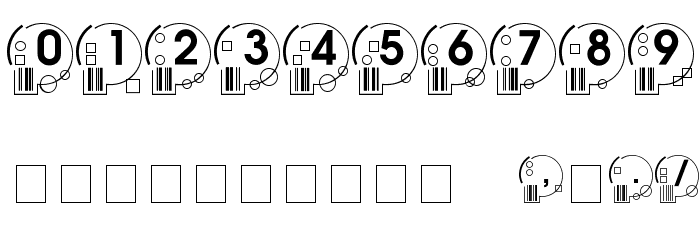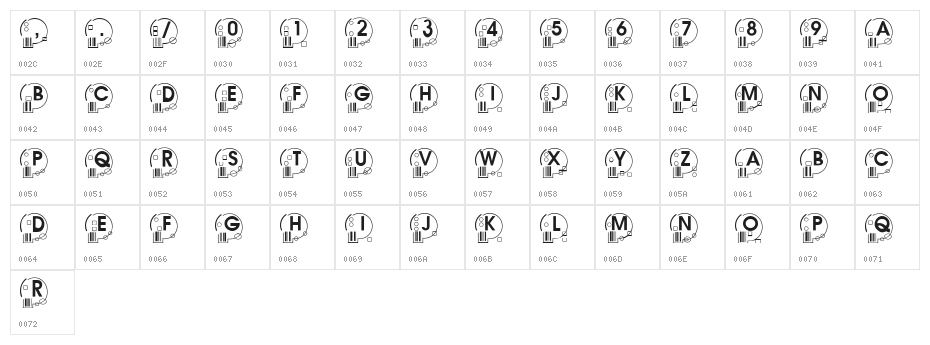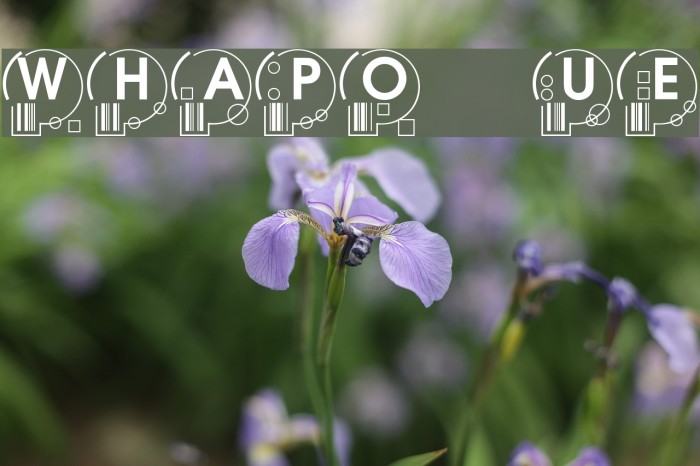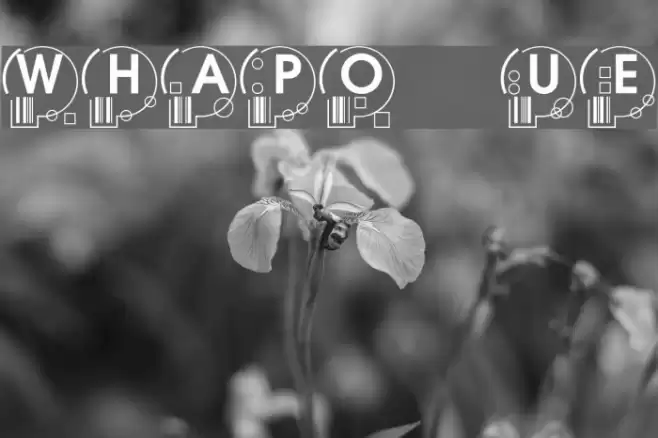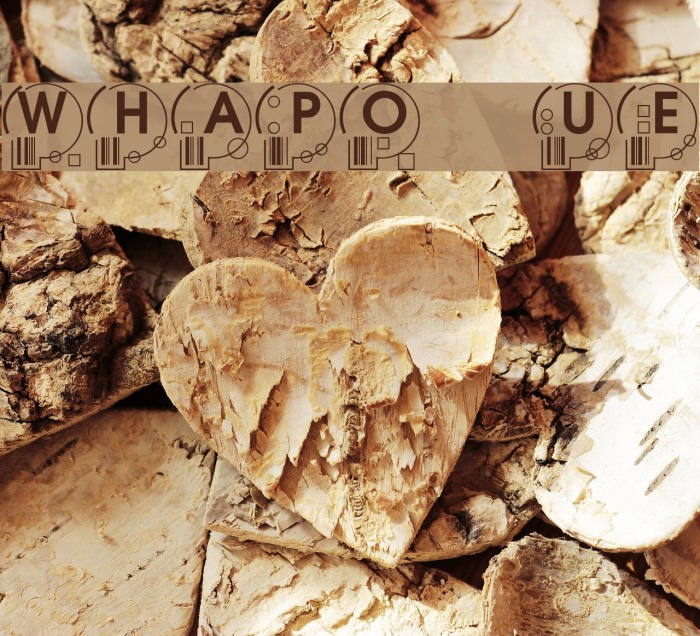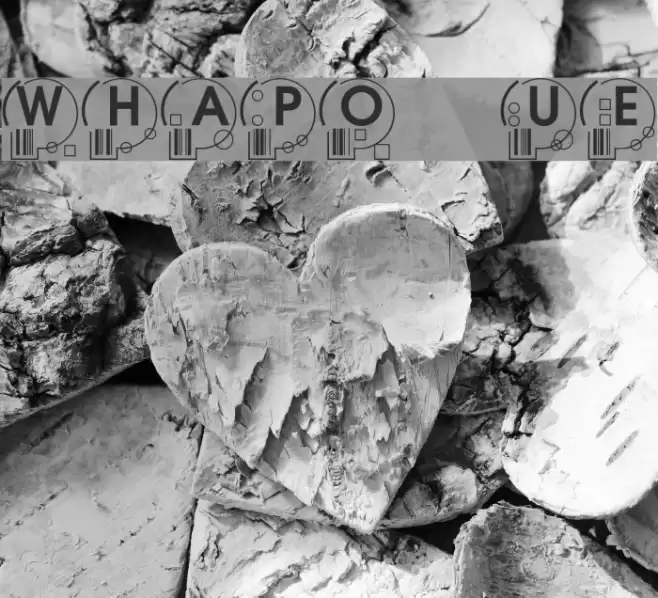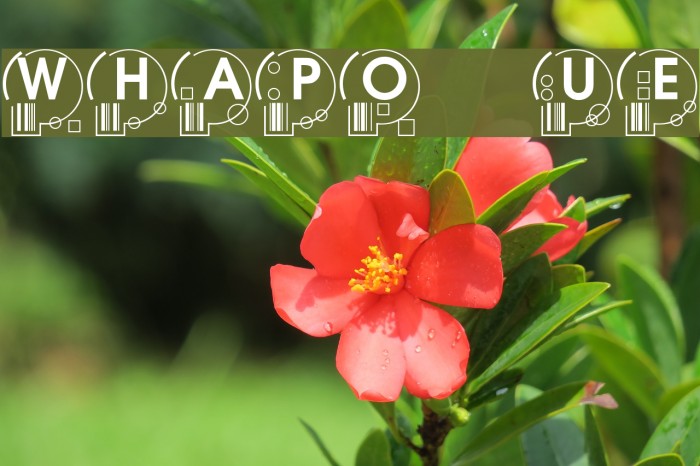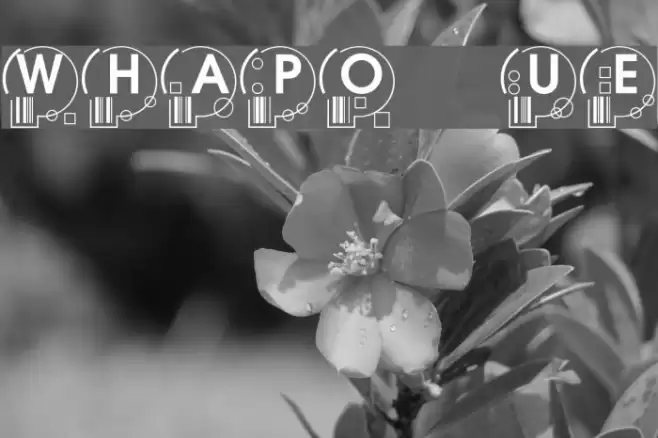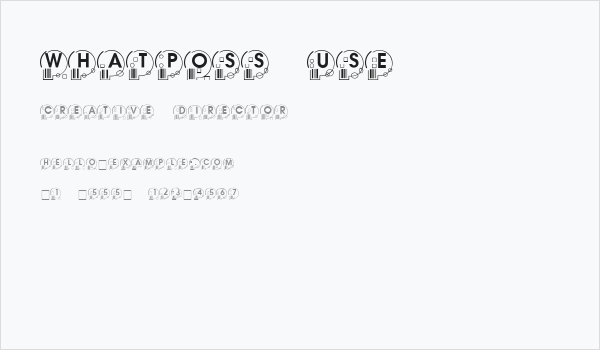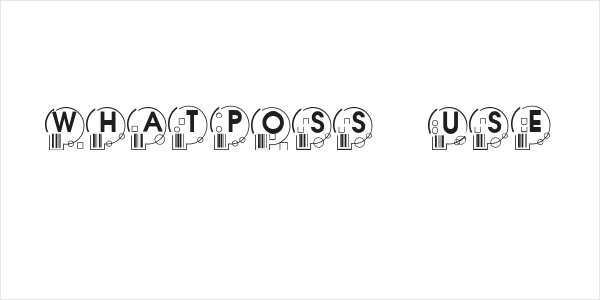
WhatPoss Use Font
WhatPoss Use Description
This font features a unique and futuristic design, incorporating geometric shapes such as circles, squares, and lines into each character. The letters and numbers are enclosed within circular outlines, giving them a distinct and modern appearance. The use of additional geometric elements within the characters adds a layer of complexity and visual interest. This style is reminiscent of digital or technological themes, making it stand out as a decorative and eye-catching typeface. The font maintains a consistent structure across both uppercase and lowercase letters, as well as numbers and special characters, ensuring uniformity in design.
| Proposed Projects | Ideal for technology branding, sci-fi themed projects, digital art, and modern posters. |